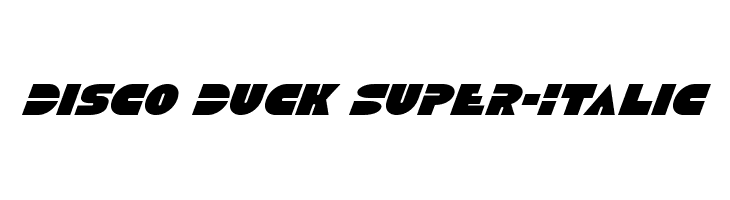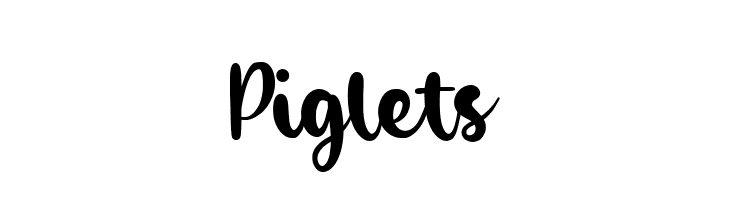
A bold, modern font with geometric lines and elegant, narrow uppercase letters.
A hand-drawn, playful font with elongated, irregular letterforms.
A playful, hand-drawn Halloween-themed font with whimsical illustrations.
A bold, geometric font with a 3D effect and a retro-futuristic style.
A bold, italic font with a vintage western style and strong visual impact.
A modern serif font with tall, slender letterforms and subtle serifs.
An elegant and sophisticated cursive font with graceful loops and swirls.
A bold, decorative font with high contrast and a modern, geometric style.
A thin, decorative italic font with intricate, interconnected segments.
A bold, playful font with irregular, organic shapes and a hand-drawn appearance.
设计师偏爱 Sundarbans, NF-Prokopis Regular, Weenies Regular, Disco Duck 3D and BILLY THE KID Italic,因为其造型干净、适用范围广—— 从品牌识别到落地页、海报都能胜任。